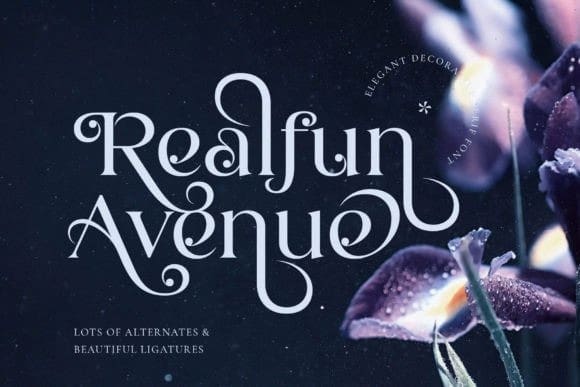
Realfun Avenue Font
Realfun Avenue Font is a modern and stylish decorative serif with rich stylistic alternates, best used as a display for headings, logos, branding, magazines, product packaging, and invitations. RealfunAvenue is equipped with ligatures and many alternates and comes with clean lines and smooth curves giving any project an extra touch of class.